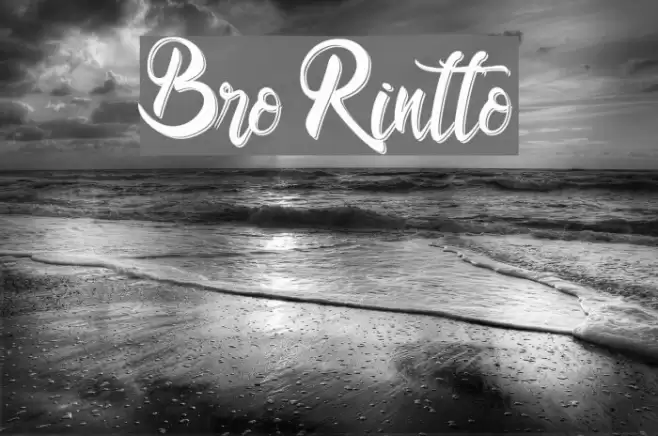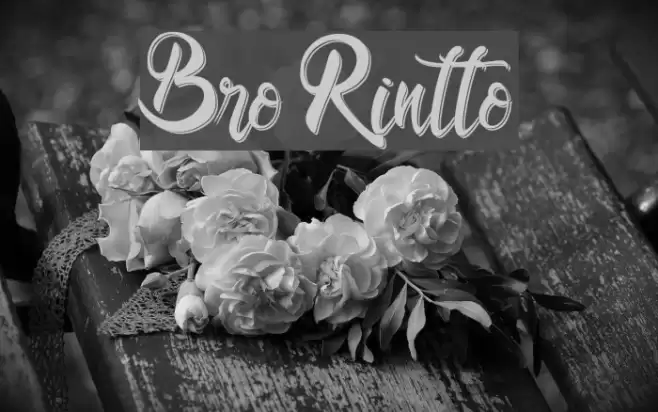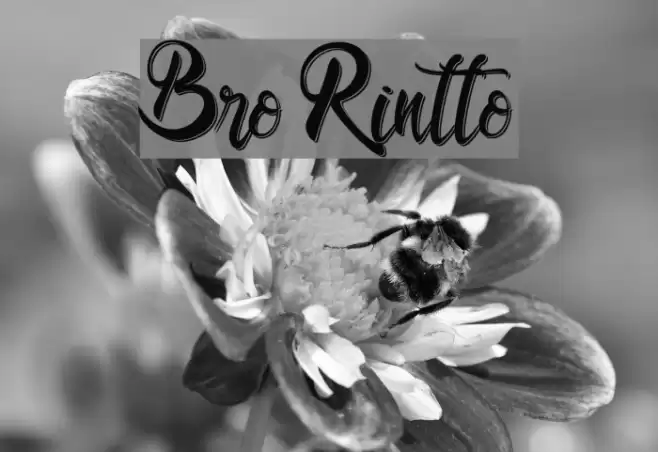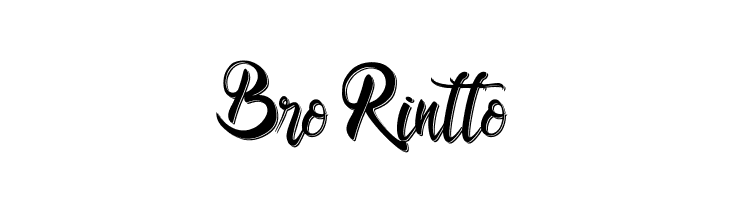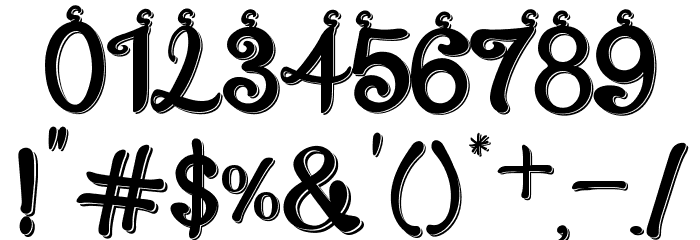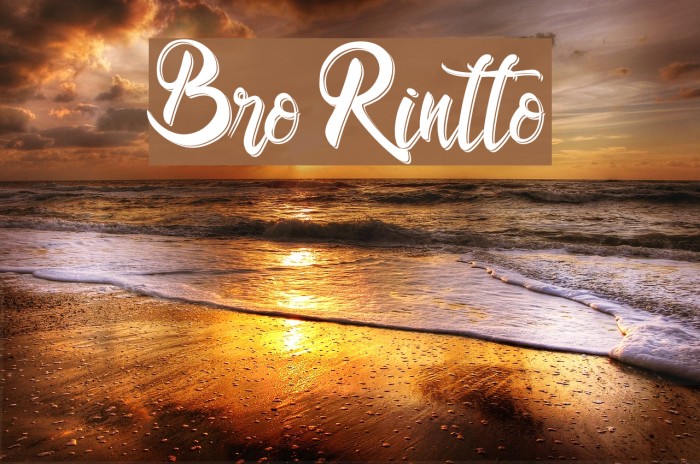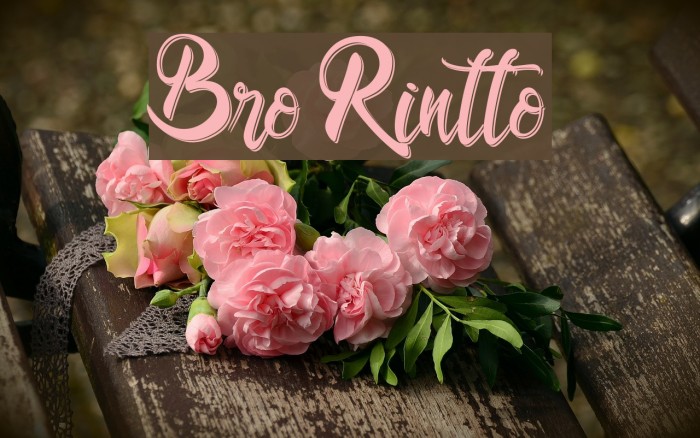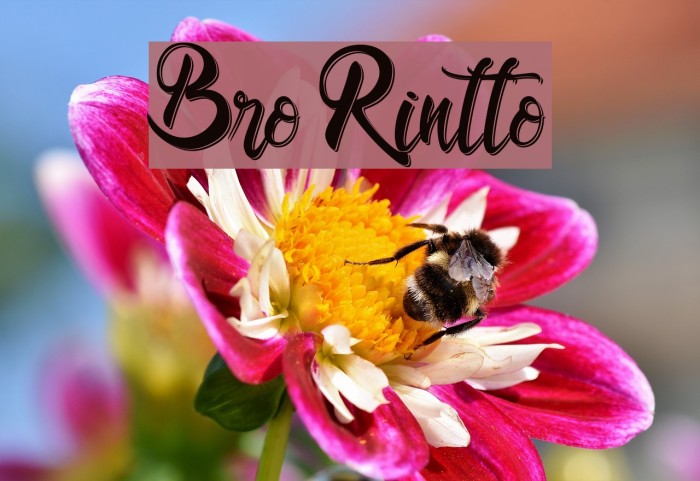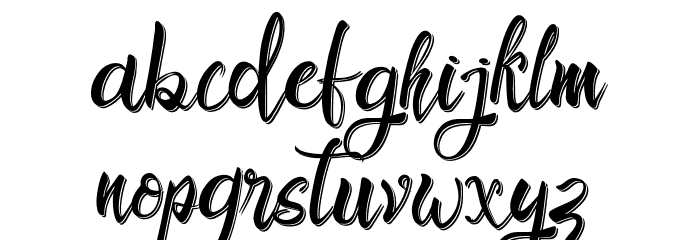
Bro Rintto Font
Bro Rintto Description
This font features a bold, cursive style with a playful and energetic flair. The uppercase letters are characterized by their sweeping curves and decorative loops, giving them a dynamic and lively appearance. The lowercase letters maintain the same cursive style, with a slightly more restrained design that complements the uppercase. The numerals are equally bold, with a distinctive flair that matches the overall aesthetic. Special characters are designed to blend seamlessly with the letters, maintaining the font's cohesive look. The font's thick strokes and high contrast make it stand out, while the decorative elements add a touch of elegance and whimsy.
A bold, cursive font with decorative loops and high contrast, perfect for eye-catching designs from Uncategorized fonts.